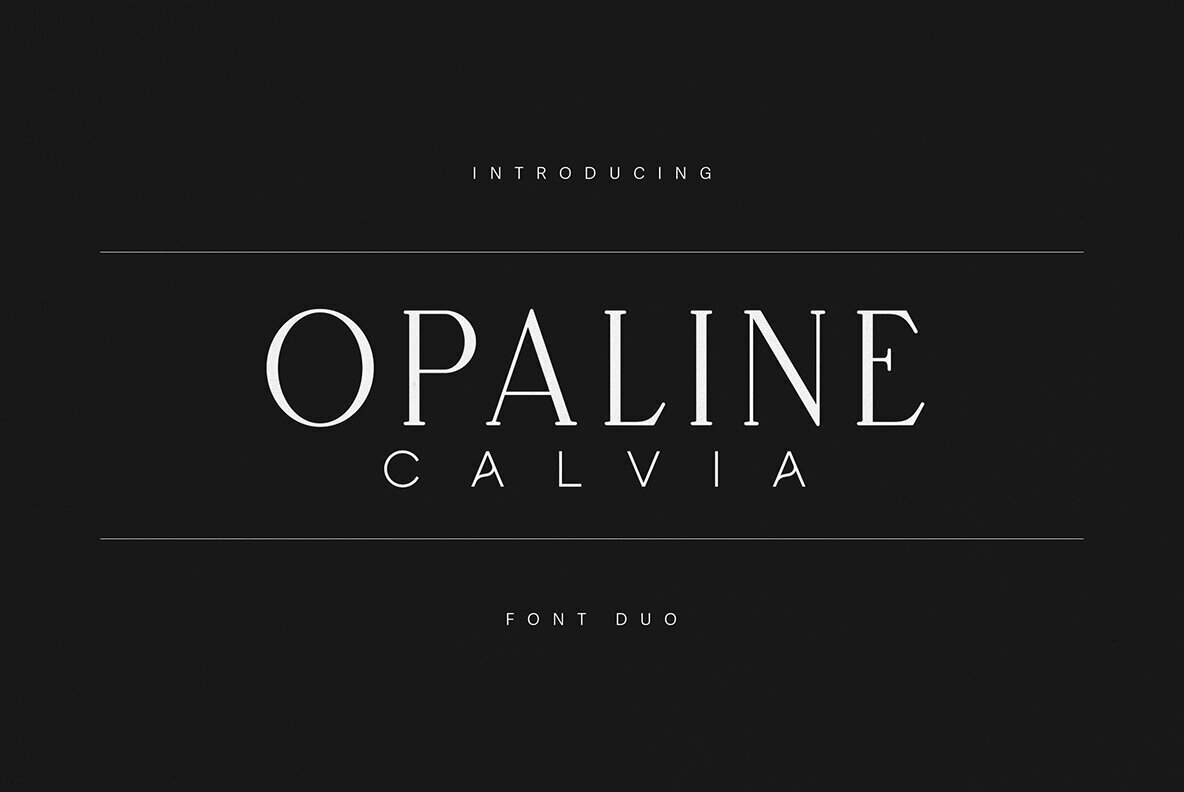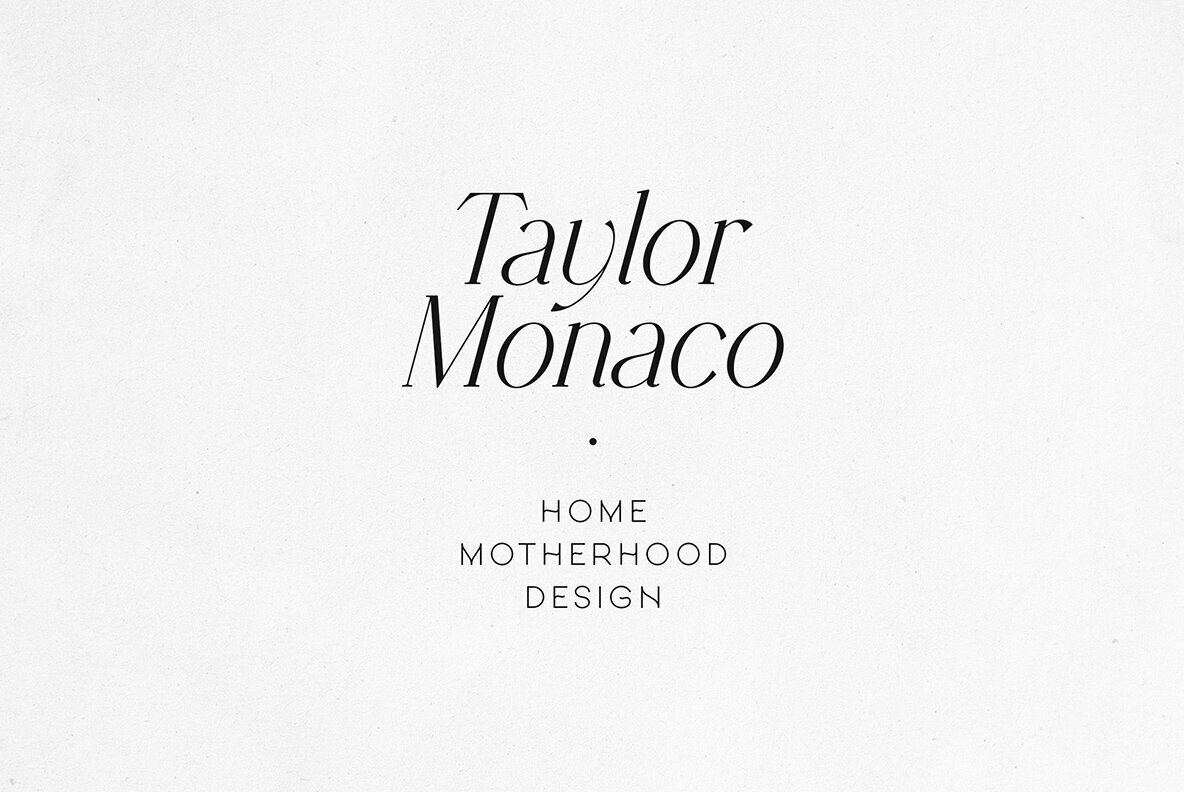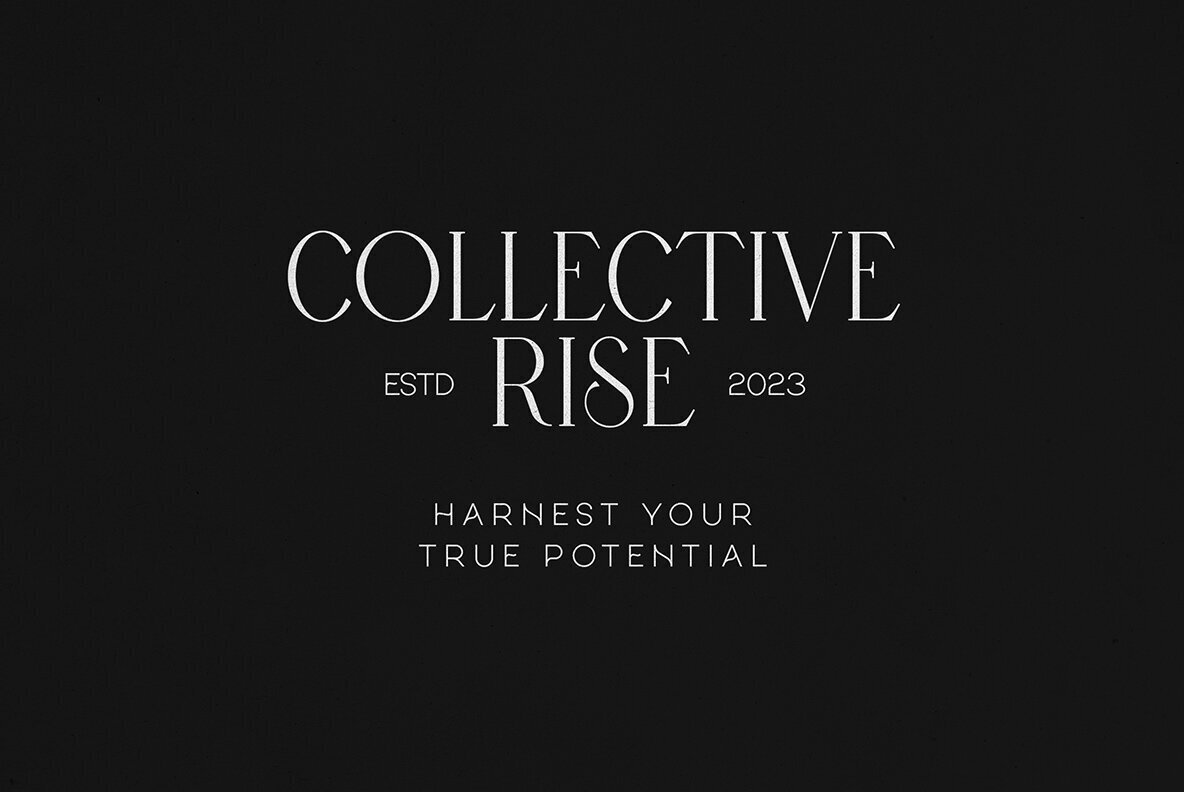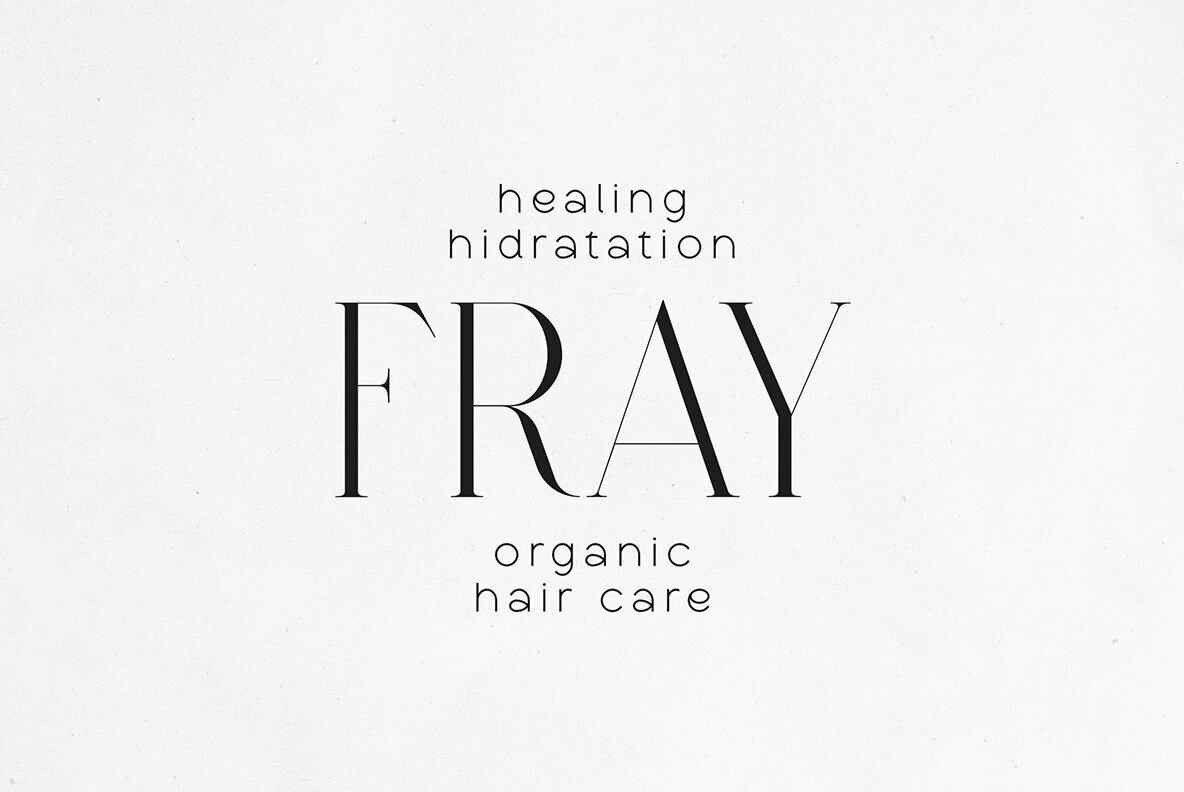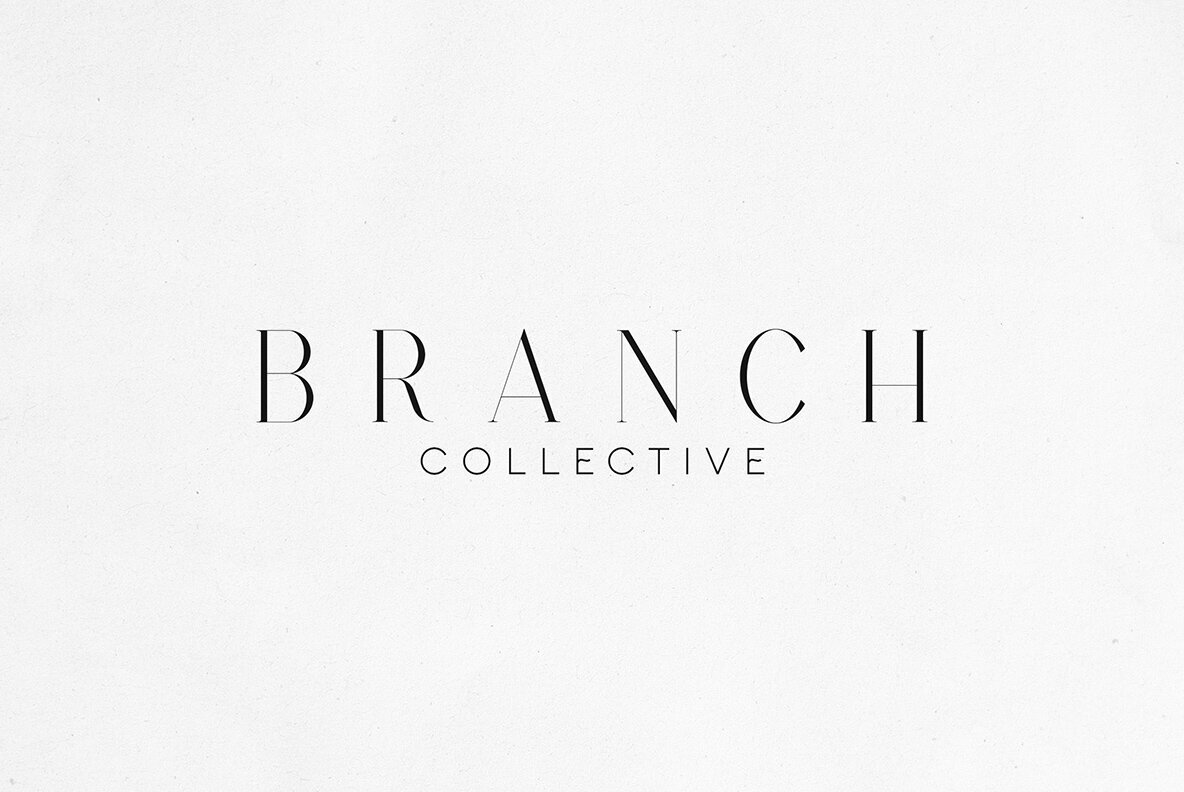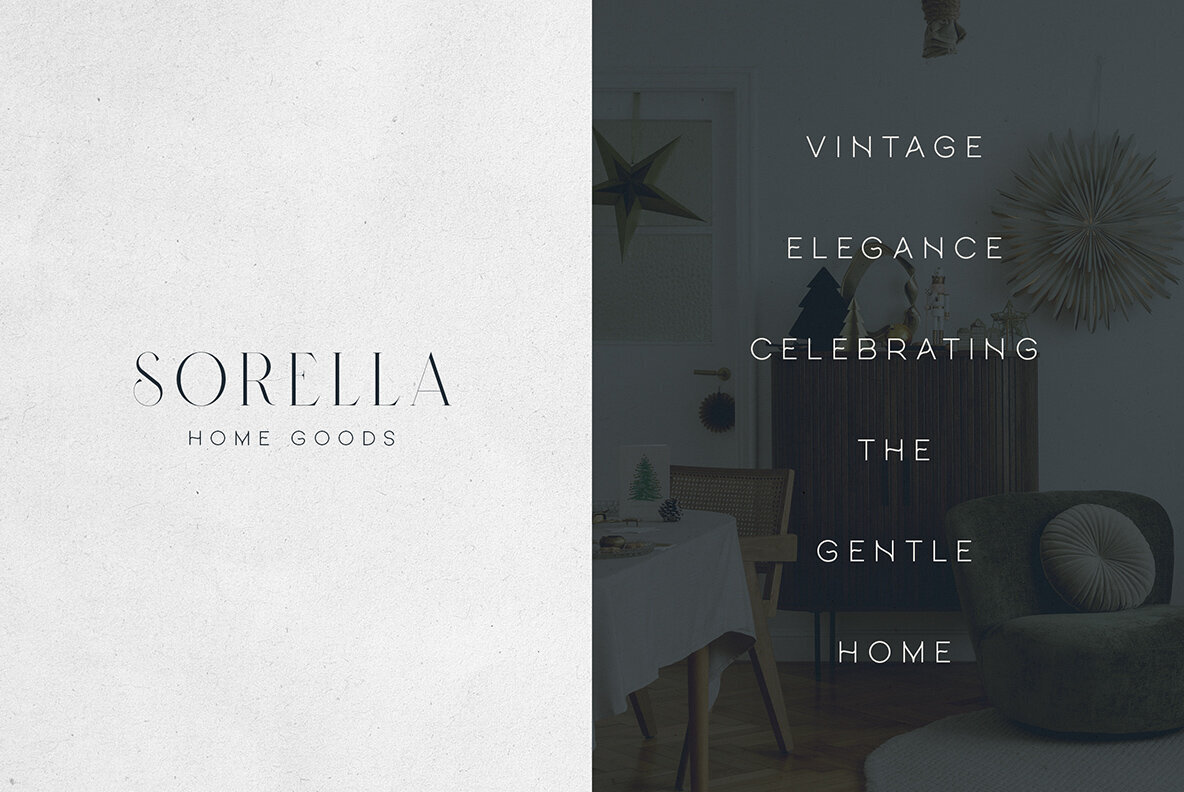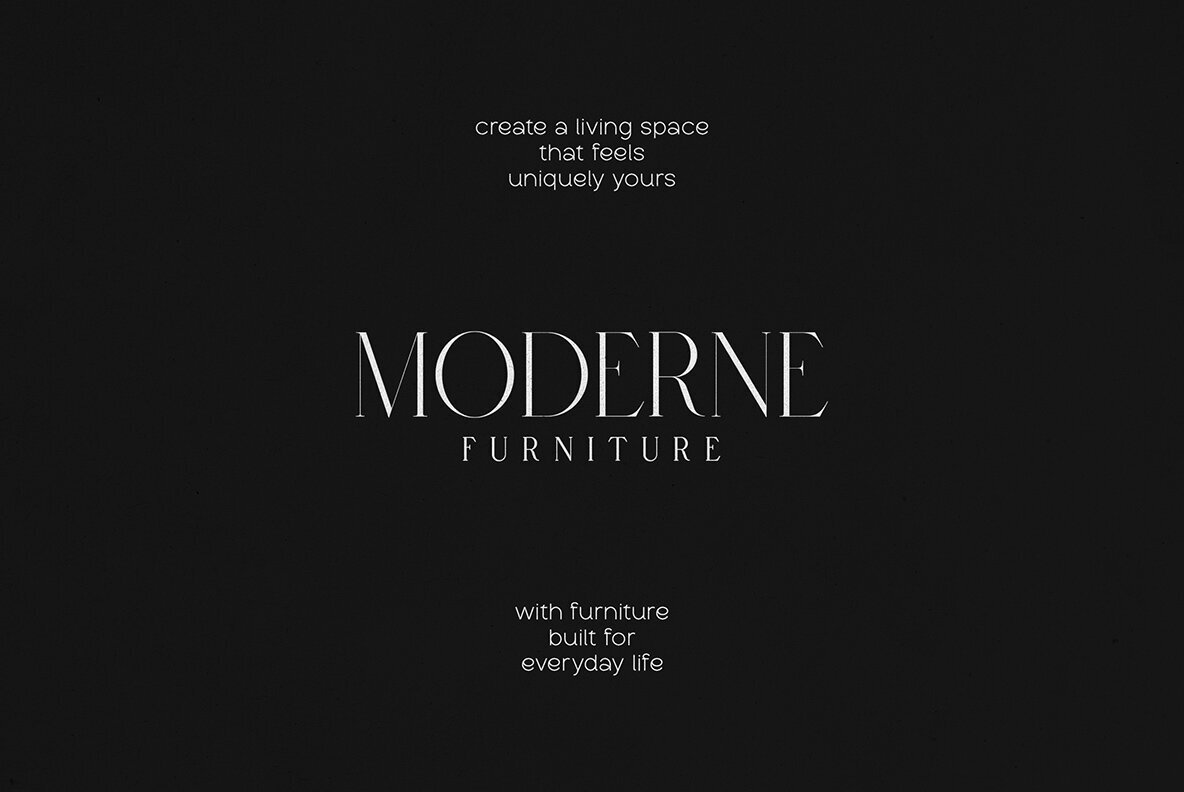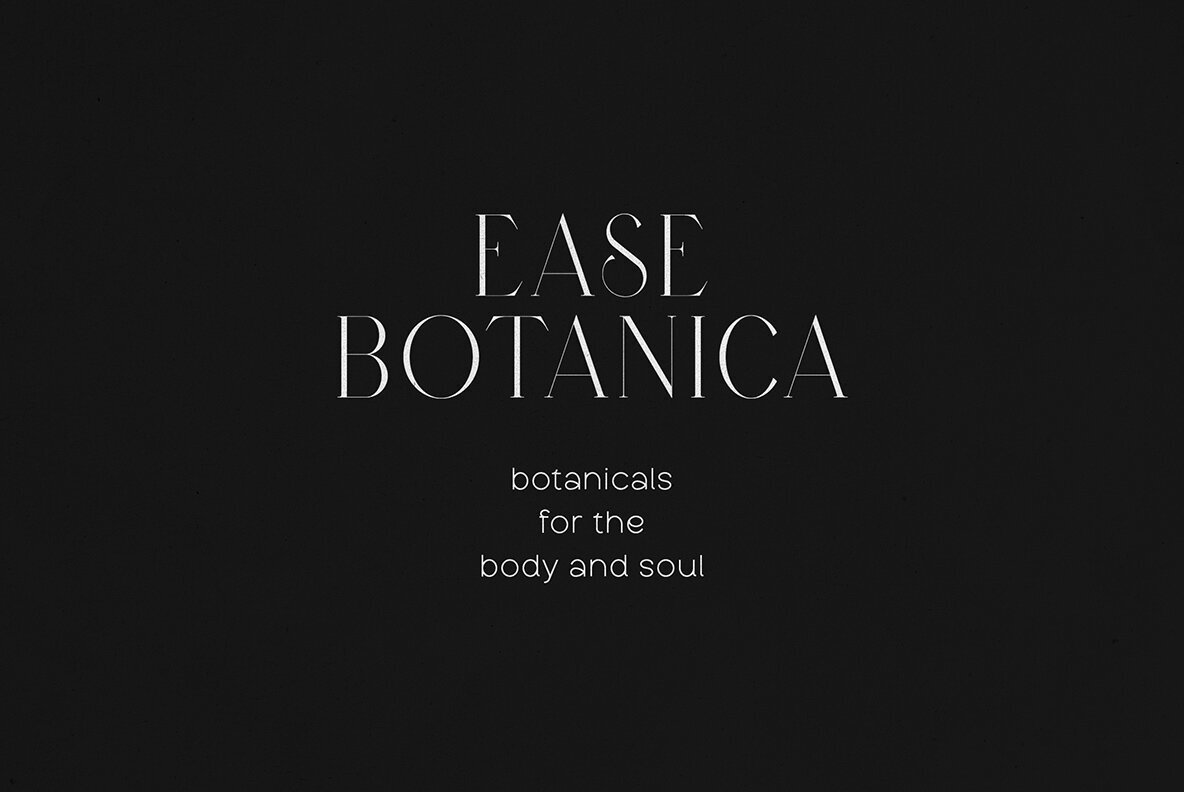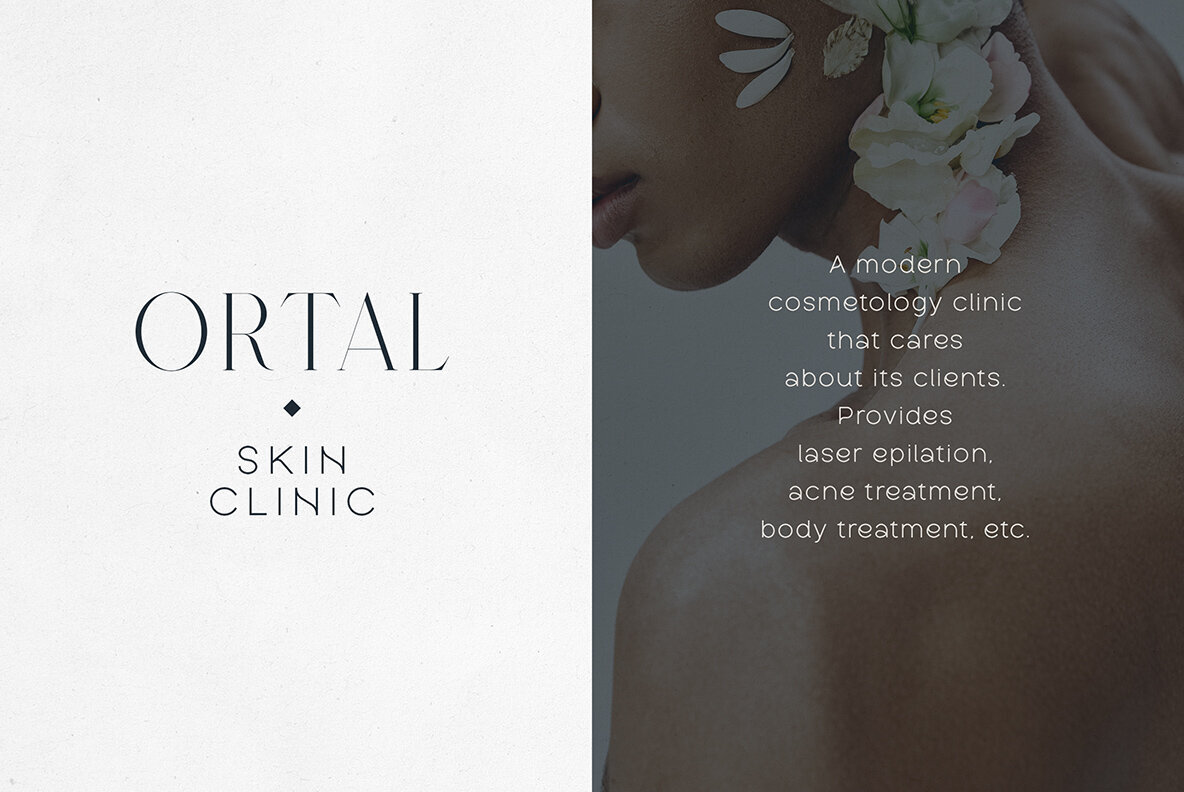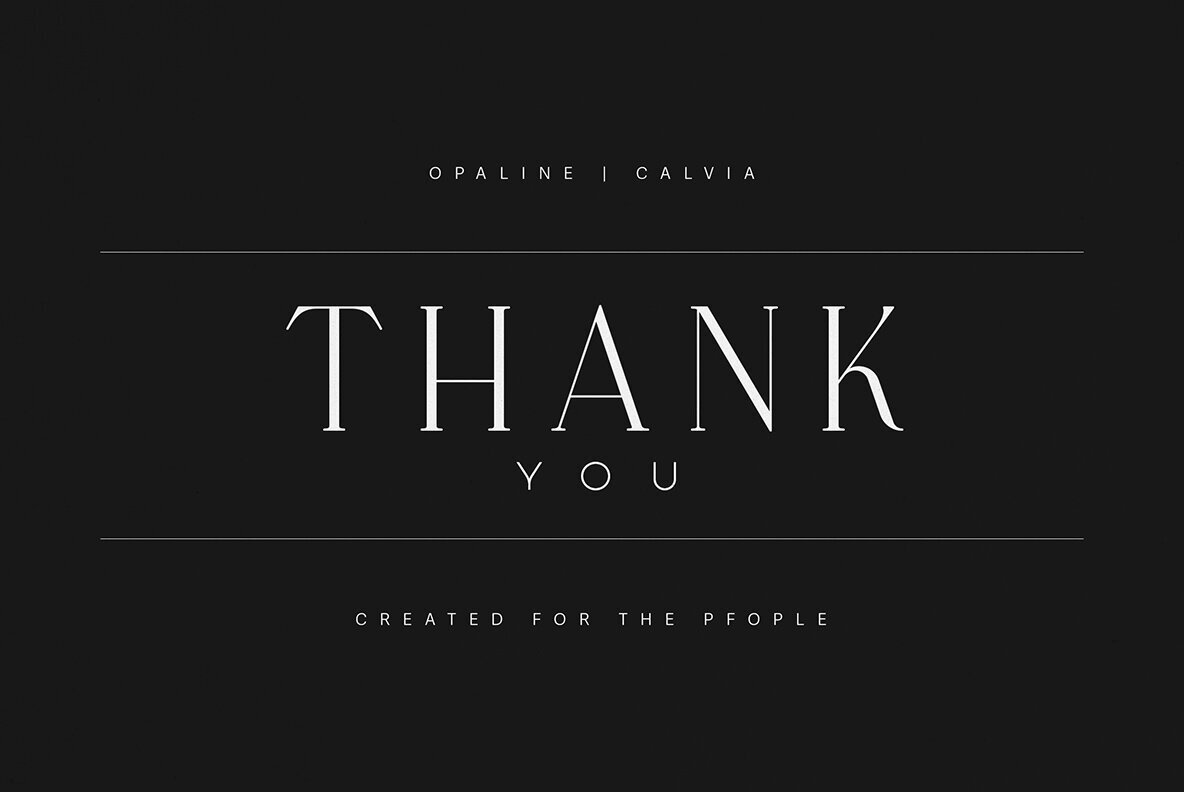
Opaline and Calvia Font
Opaline and Calvia bring together high-contrast elegance and minimalist geometry for distinctive, modern design. This refined font duo is crafted for luxury brands, fashion labels, beauty products, interior studios, and upscale lifestyle businesses seeking timeless sophistication. The Opaline serif features graceful, slender strokes and classic proportions for a confident, refined look. Calvia, with its sans-inspired minimalism, provides a contemporary balance—ideal for logos, editorial layouts, packaging, and digital visuals. This font pairing is designed with versatility in mind. Seamlessly move between bold branding and polished editorial compositions. Each font complements the other, combining romantic refinement with clean precision to support a wide range of creative projects, from magazine titles to boutique packaging and web design.Opaline and Calvia: Modern Elegant Font Duo